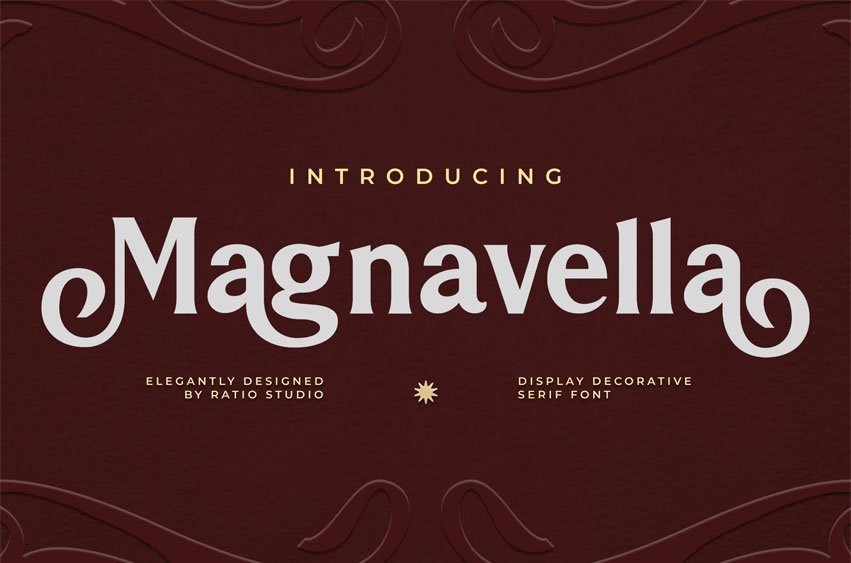
Magnavella Font is an elegant display typeface that blends classic serif structure with ornate decorative swashes. Featuring refined letterforms, stylish curves, and graceful terminals, this font offers a sophisticated look perfect for high-end and creative projects. It includes uppercase, lowercase, numbers, punctuation, and also comes with alternates and ligatures for added design flexibility. Magnavella brings timeless beauty and a luxurious flair to any visual design.
Relevance and Use Cases is perfect for luxury branding, fashion editorials, magazine layouts, wedding invitations, product packaging, boutique logos, posters, book covers, stationery, and creative advertising projects that require a decorative serif with elegance and flair.
• Ligatures & Alternates